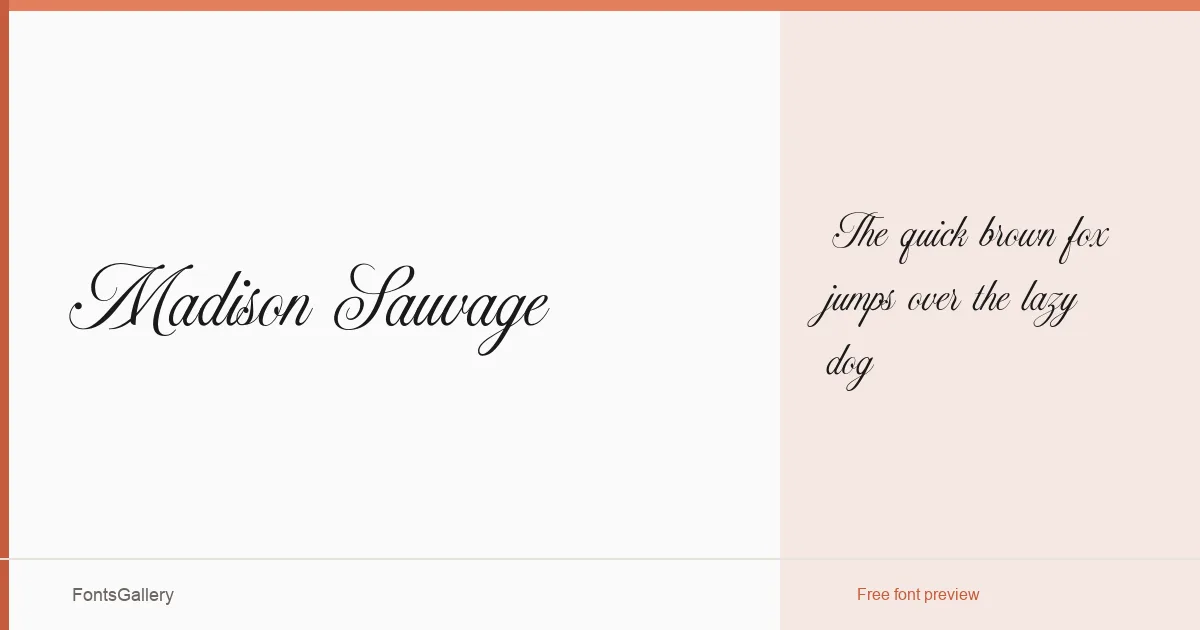
About Madison Sauvage Font
Madison Sauvage is a script typeface crafted by Laire Banyu Sandi Pawenang under the Jolicia Type Foundry. It embodies an air of elegance and luxury, making it a refined choice for projects that call for a touch of romance and classic sophistication. Its flowing script character positions it as a distinguished option within the script typeface category.
Madison Sauvage features the graceful, flowing letterforms characteristic of elegant script typography, with strokes that evoke a sense of timeless luxury and romantic charm. The classical qualities woven into its design lend each character a refined, handcrafted feel that balances beauty with legibility. This interplay of elegance and classic styling gives the typeface a distinctive, upscale presence on the page.
Madison Sauvage is ideally suited for logos, wedding stationery, invitation cards, greeting cards, and certificates where an elevated, romantic aesthetic is desired. Its luxurious script style pairs beautifully with Aresink for an all-script, harmonious composition, or with Helvetica to create a striking contrast between expressive calligraphy and clean, modern sans-serif type.